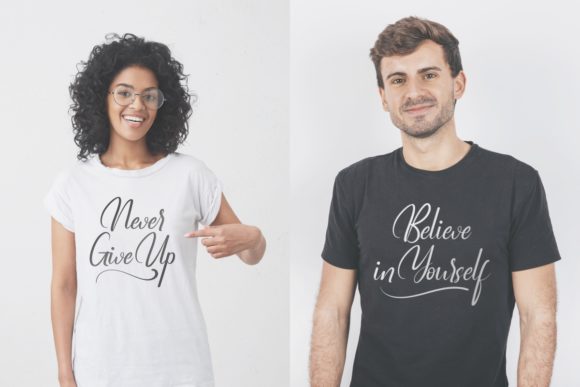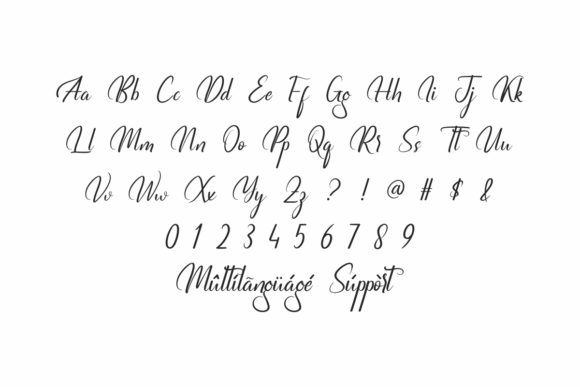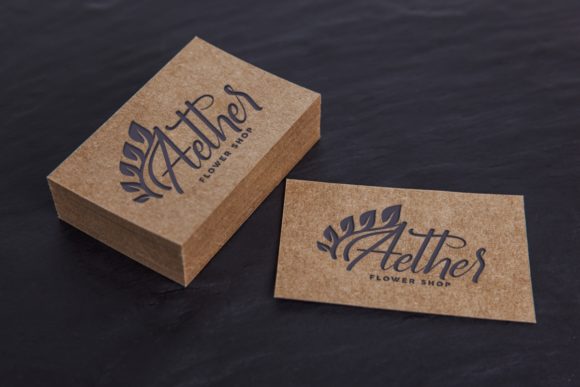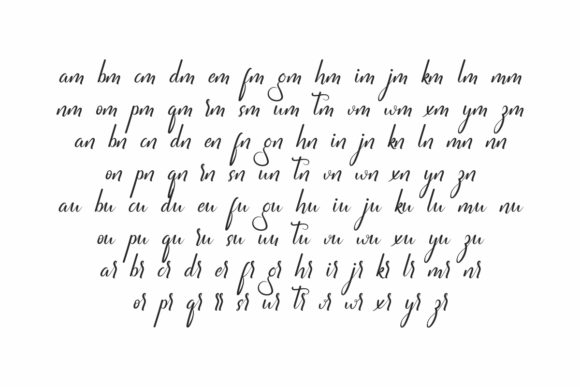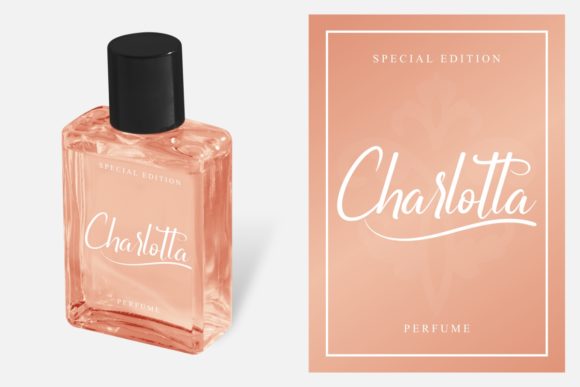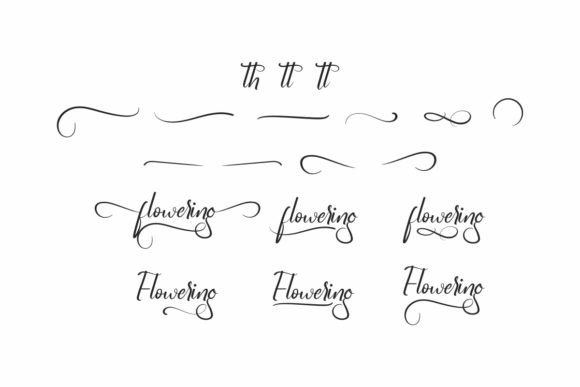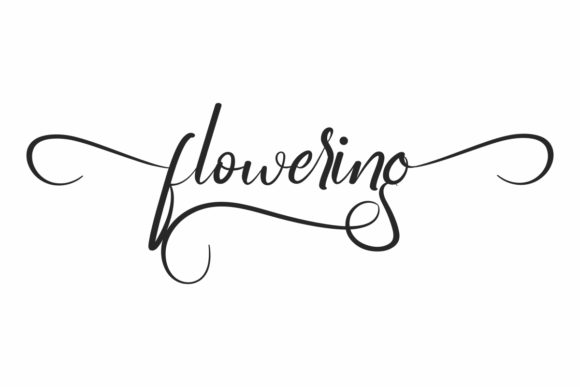
Introducing Flowering Font: Elevate Your Designs with Elegance and Personalization
In the world of digital design, fonts play a pivotal role in conveying the mood and aesthetic of a project. For those seeking a touch of elegance and personalization, the Flowering Font emerges as a standout choice. This unique and elegant handwritten font is designed to grace a variety of designs with its sophisticated charm, making it perfect for projects that demand a bespoke feel.
The Beauty of Flowering Font
Flowering Font is not just any ordinary font; it’s a beautifully crafted handwritten typeface that exudes elegance and refinement. Its intricate details and flowing lines make it an ideal selection for designs that require a personal touch. Whether you’re working on wedding invitations, thank you cards, wedding planners, greeting cards, or logos, Flowering Font can elevate your project from ordinary to extraordinary.
One of the key benefits of Flowering Font is its versatility. It can be used across a wide range of design projects, including:
- Wedding Invitations: Add a touch of romance and sophistication to your wedding invites.
- Thank You Cards: Express your gratitude with style and elegance.
- Weddings and Events: Perfect for creating memorable stationery and decor.
- Greeting Cards: Make your greeting cards stand out with a personal touch.
- Logos: Create unique and memorable logos for businesses or personal brands.
Flowering Font comes with PUA (Private Use Area) encoding, a feature that makes it incredibly user-friendly. PUA encoding allows designers to access all the glyphs and swashes easily, providing the flexibility needed to customize and personalize designs. This means you can effortlessly incorporate intricate details and flourishes into your projects, taking them to the next level.
Why Choose Flowering Font?
For designers and crafters looking for a font that combines elegance with practicality, Flowering Font ticks all the boxes. Here are a few reasons why it should be at the top of your font considerations:
- Elegance: Its unique and elegant design ensures your projects stand out.
- Versatility: Suitable for a wide range of projects, from weddings to logos.
- Easy to Use: PUA encoding makes accessing glyphs and swashes straightforward.
- Personalization: Offers the perfect way to add a personal touch to your designs.
Flowering Font is more than just a font; it’s a design element that can transform your projects with its elegance and charm. Whether you’re a professional designer or a crafter, this font offers the perfect blend of beauty and functionality. With its PUA encoding and wide range of applications, Flowering Font is set to become your go-to choice for projects that demand a personal and sophisticated touch.